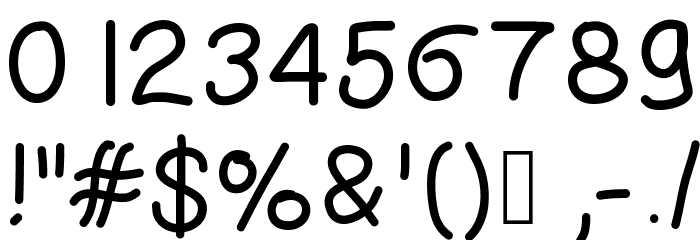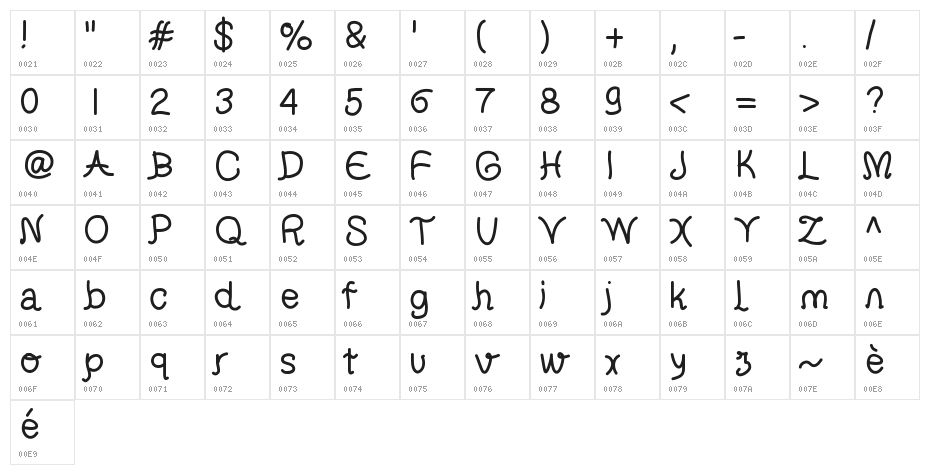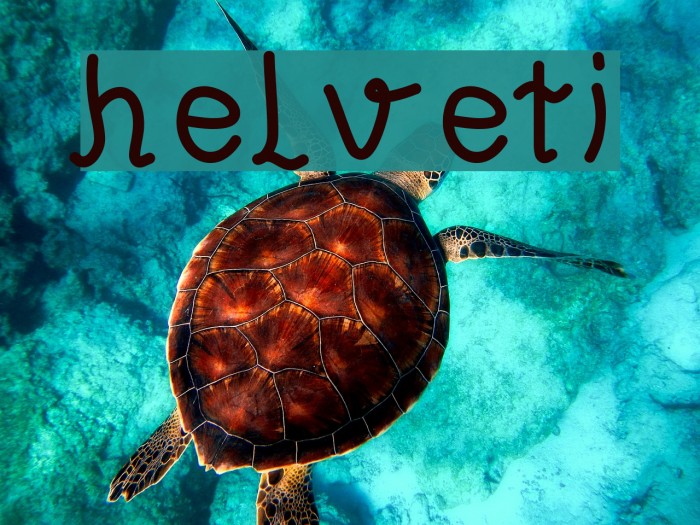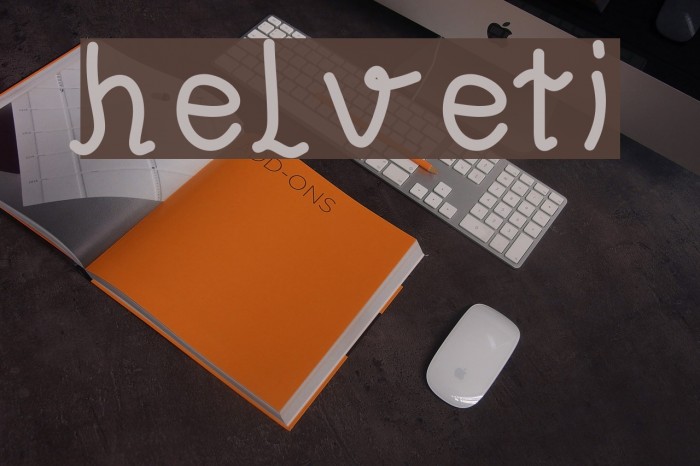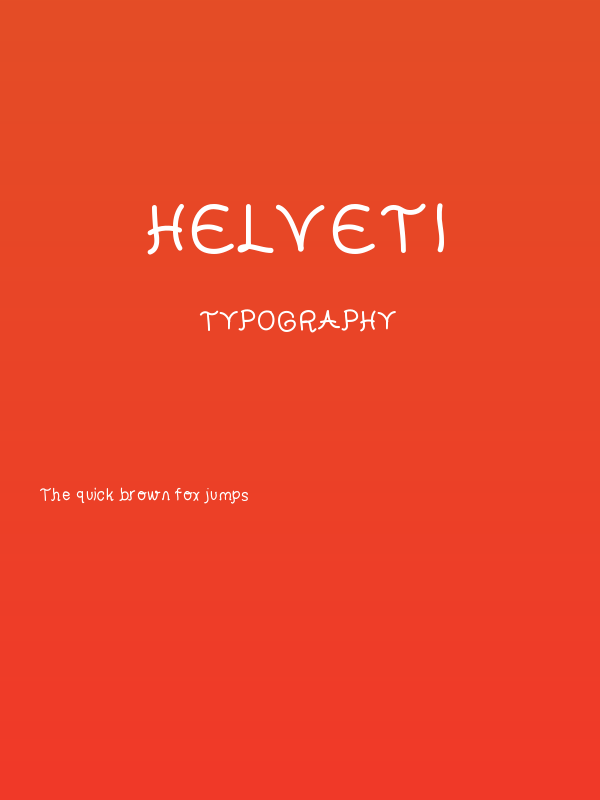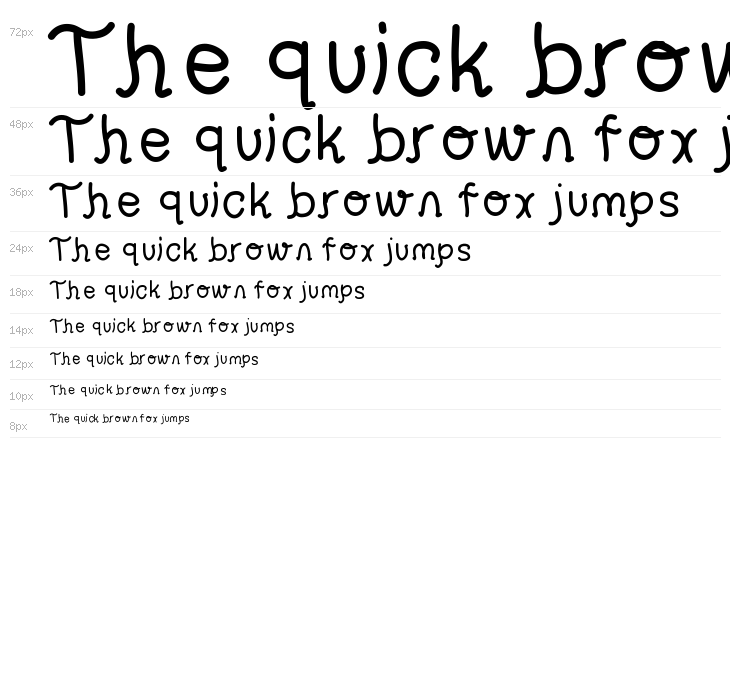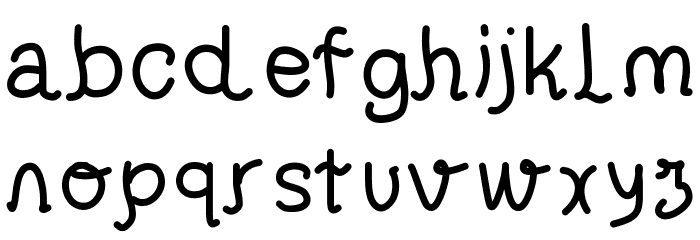
helveti Font
helveti Description
This font features a playful and whimsical style, characterized by its rounded and slightly irregular letterforms. The uppercase letters maintain a consistent height, while the lowercase letters exhibit a charming, hand-drawn quality with subtle variations in stroke width. The numerals are bold and clear, matching the overall playful aesthetic. Special characters are creatively integrated, maintaining the font's unique personality. This font exudes a sense of fun and creativity, making it ideal for projects that require a touch of informality and warmth.